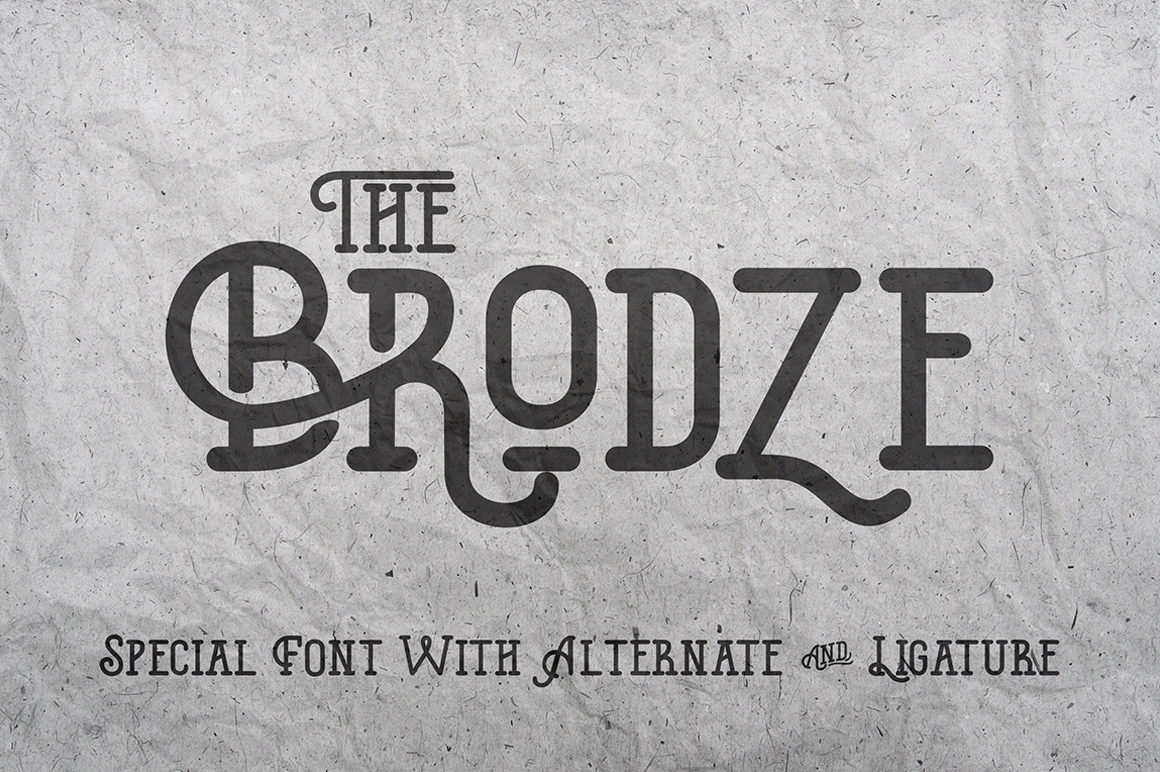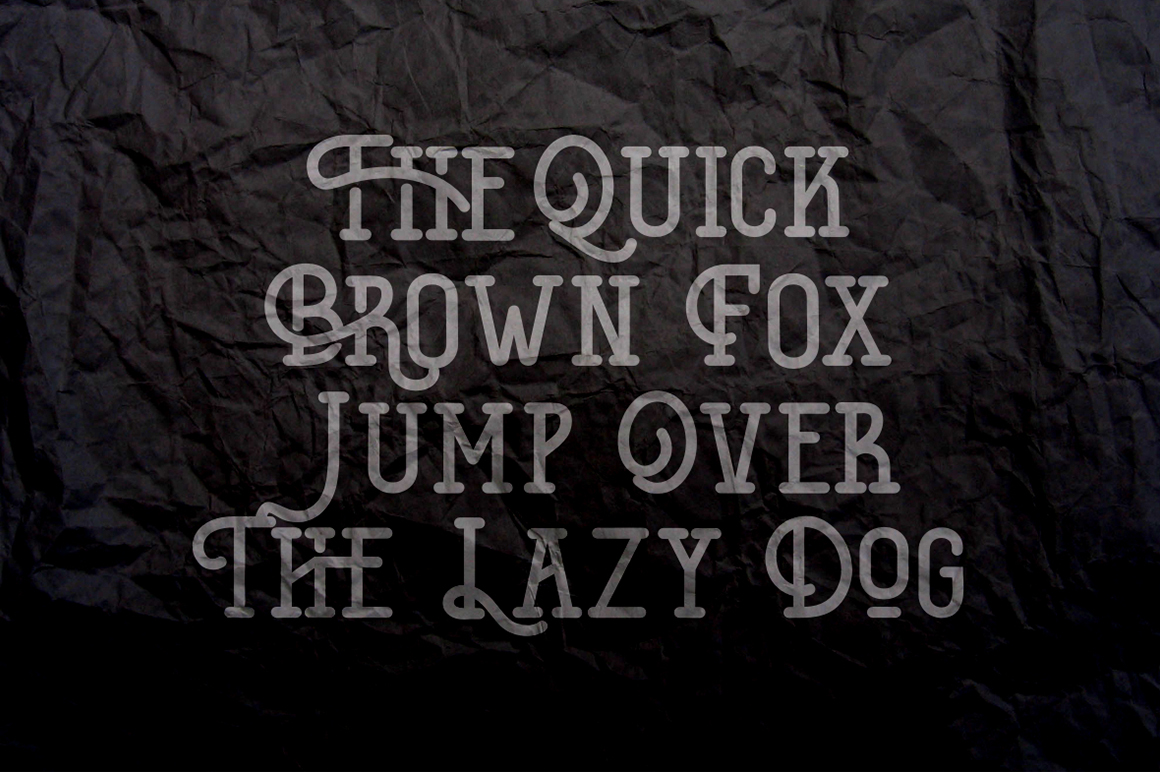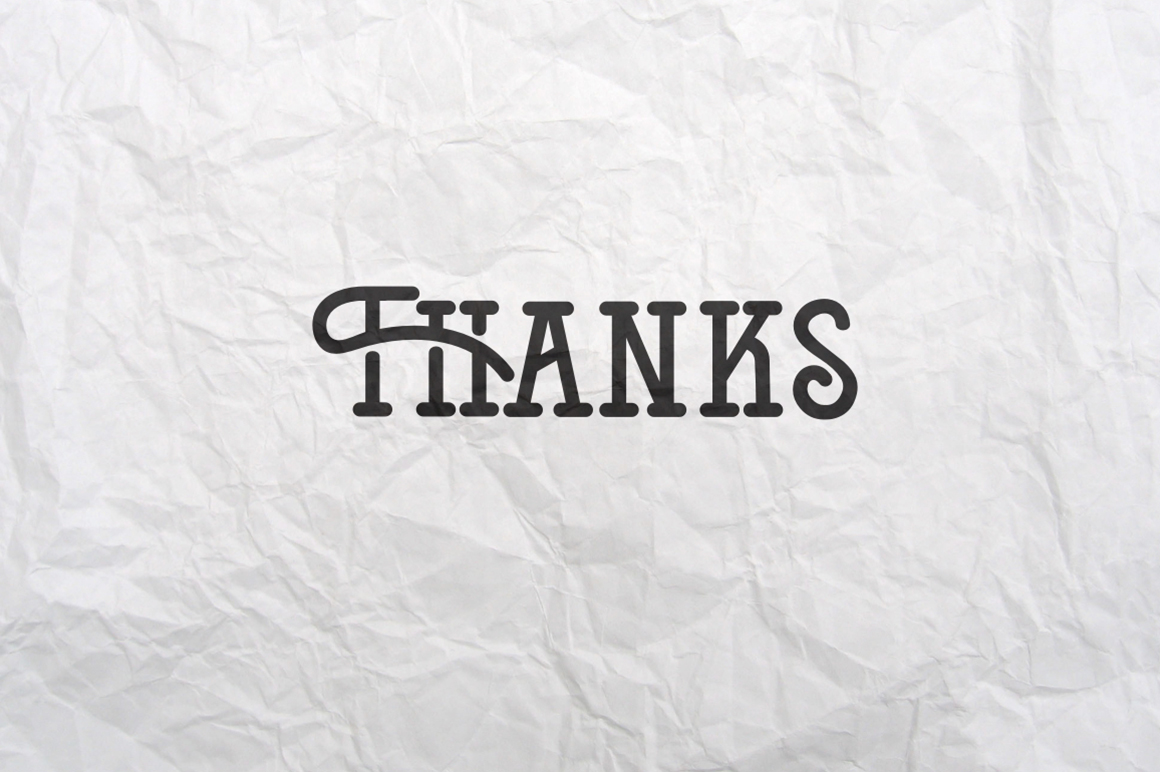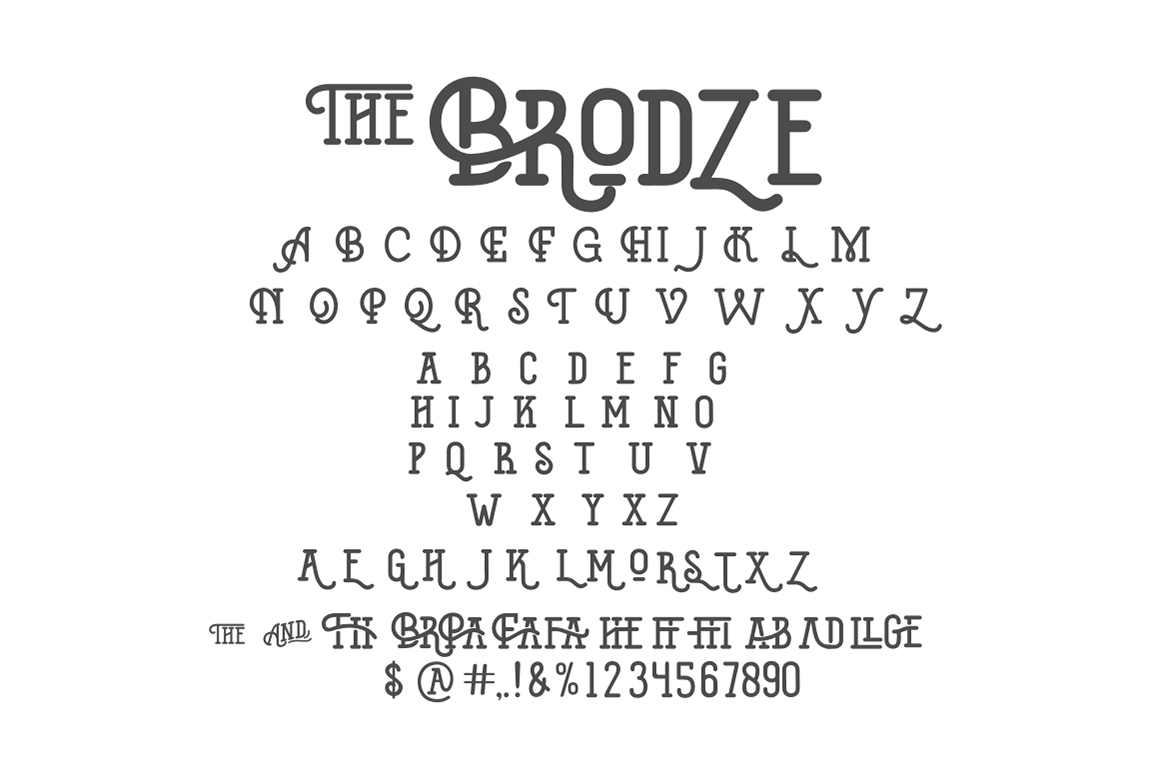
The Brodze Font
THE BRODZE specifically designed with a variety of alternate, ideal for posters, t shirts, typography, writing etc.
| Classification: | Blackletter / Gothic Fonts, Serif Fonts |